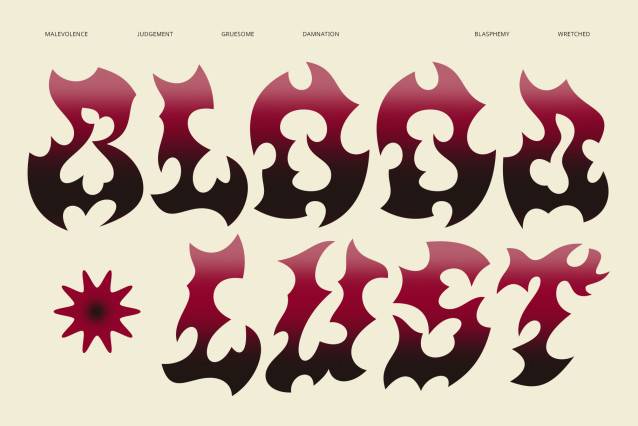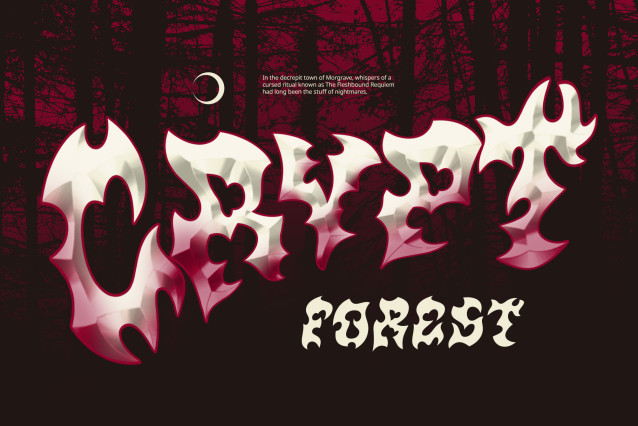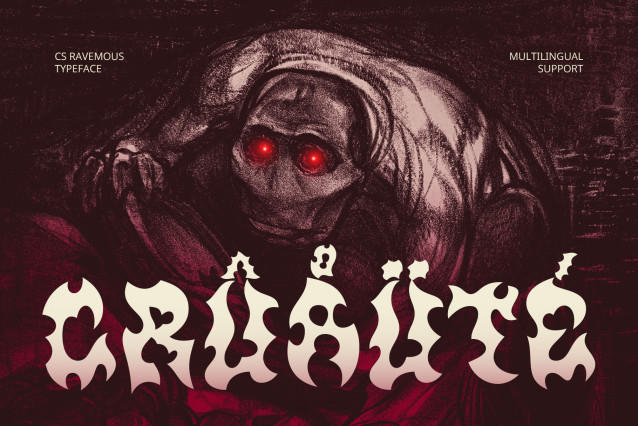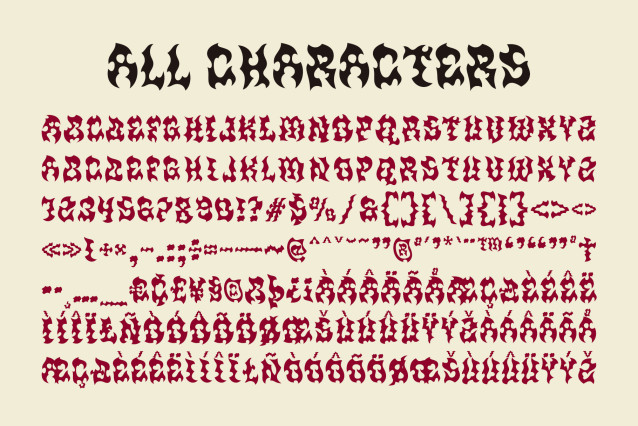
CS Ravemous Font
CS Ravemous Font is a display typeface designed to echo the wild, untamed energy of black metal. The jagged structure and aggressive details make it the perfect choice for visuals that demand power and individuality.